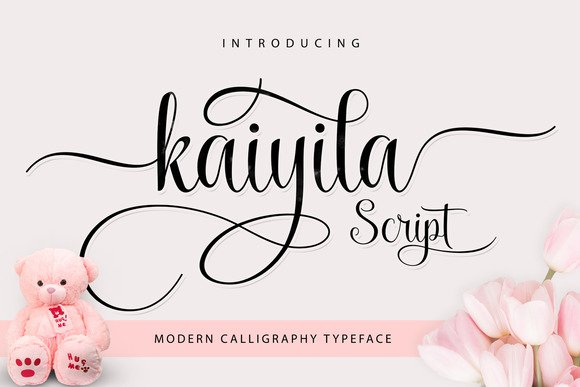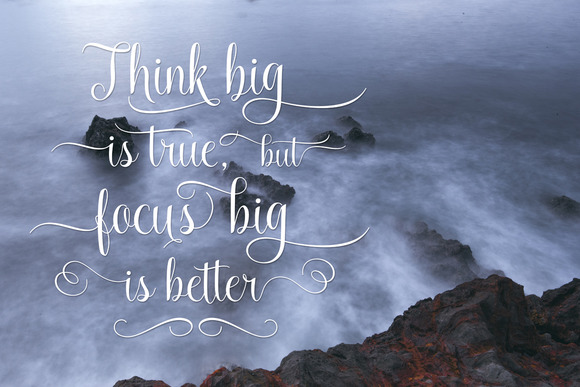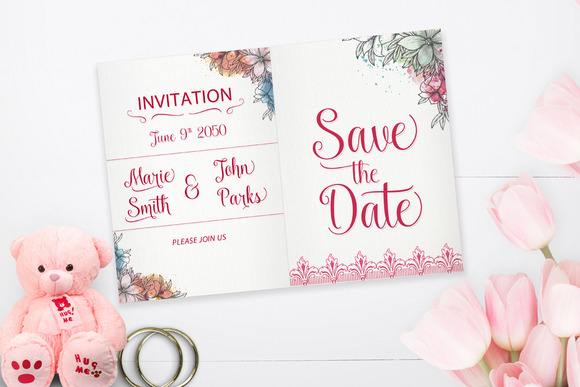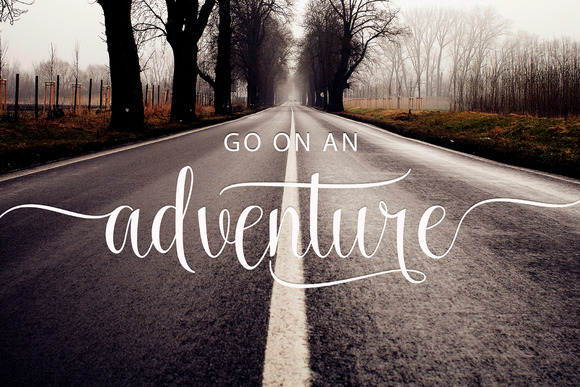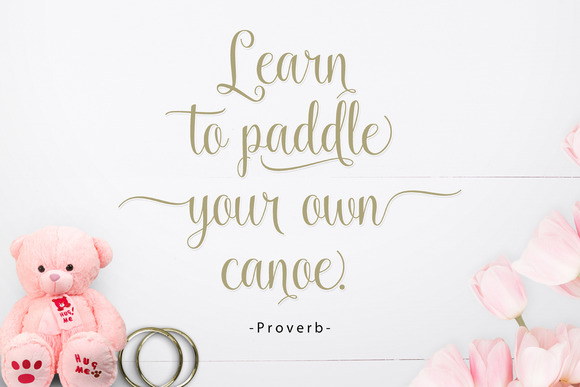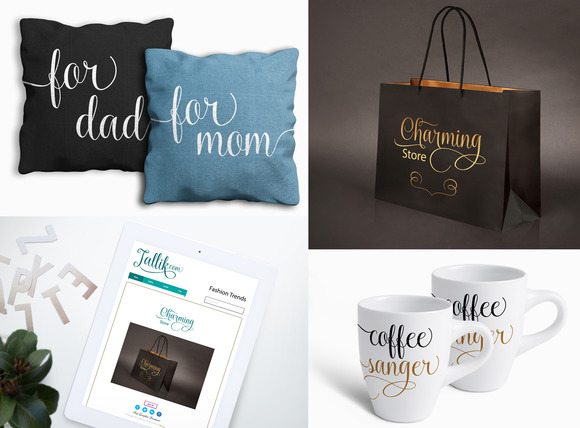
Unleashing Your Creative Potential with Kaiyila Script Font
There’s nothing quite like the thrill of bringing a new project to life, surrounded by an ocean of possibilities and endless ideas. You’ve got a vision in your mind, a spark that refuses to be extinguished. And then, it hits you – the perfect font to bring your masterpiece to the world.
This is where the Kaiyila Script Font comes in, a stunningly fresh and modern script font that’s sure to elevate your designs to new heights. With its authentic and decorative calligraphy style, Kaiyila is perfect for a wide range of applications, from wedding and birthday invites to business cards, posters, and much more. As a designer, you’ll appreciate the versatility and creative freedom that Kaiyila offers, with its staggering 816 unique hand-drawn glyphs and advanced OpenType features.
Kaiyila Script Font Key Features
- Font Family: Kaiyila Script
- Unique Characteristics: Hand-drawn, cursive script with elegant and refined feel, suitable for invitations, wedding cards, and other formal events
Kaiyila Script Font Review
As a designer, I’ve had the chance to work with the Kaiyila Script Font, and I must say it’s a beautiful addition to any project. ✨ The font’s elegant and refined feel makes it perfect for high-end branding, invitations, and other applications where sophistication is key.
The Kaiyila Script Font’s main strengths lie in its:
- ✨ High-quality, handwritten feel that’s both authentic and polished
- ✨ Wide range of language support, making it a great choice for multilingual projects
- ✨ Variety of weights and styles to choose from, allowing for a high degree of customization
However, as with any font, there are some limitations to consider:
- ⚠️ The Kaiyila Script Font can be quite dense, which may make it difficult to read in smaller sizes or when paired with other fonts that are too bold
- ⚠️ Some users may find the font’s connections between letters to be a bit too loose, potentially affecting legibility in certain contexts
Overall, I think the Kaiyila Script Font is a great choice for designers looking to add a touch of elegance to their projects. While it may not be perfect, its strengths far outweigh its limitations, making it a worthwhile addition to any font collection.
Tips for Getting the Most Out of Kaiyila Script Font
Use Kaiyila Script Font for titles, headings, and quotes to add a touch of elegance to your designs. Experiment with different font sizes and colors to create visual interest. Avoid using it for large blocks of text, as it can be difficult to read.
Kaiyila Script Font is ideal for:
- Event promotions and marketing materials
- Personalized gift tags and labels
Carolyna Pro is a elegant and sophisticated script font that is perfect for creating a sense of refinement and culture. It’s ideal for luxury branding, high-end packaging, and other designs where you want to convey a sense of sophistication and elegance. Compared to Kaiyila Script Font, Carolyna Pro has a more classic and timeless feel, with a more subtle flair at the ends of the letters.
Alex Brush is a beautiful and elegant script font that is perfect for creating a sense of warmth and personality. It’s ideal for branding, advertising, and packaging designs where you want to add a touch of humanity and approachability. Compared to Kaiyila Script Font, Alex Brush has a more casual and friendly feel, with a more subtle flair at the ends of the letters.